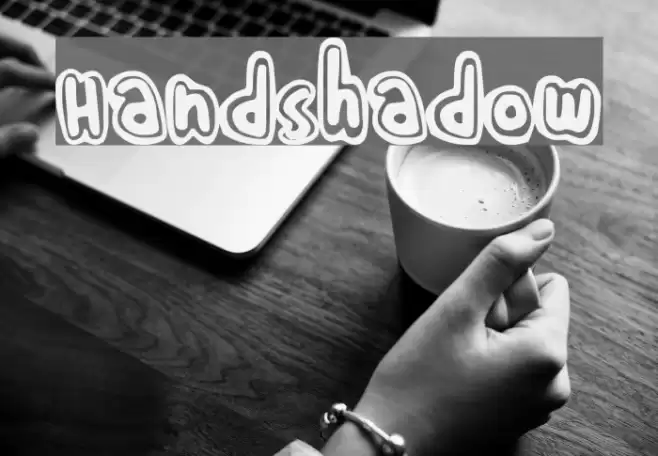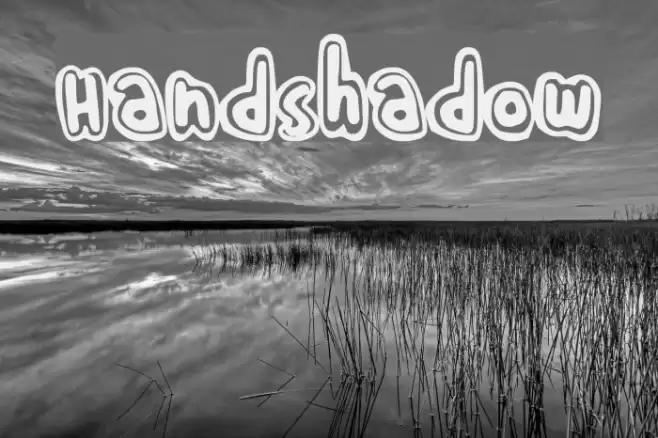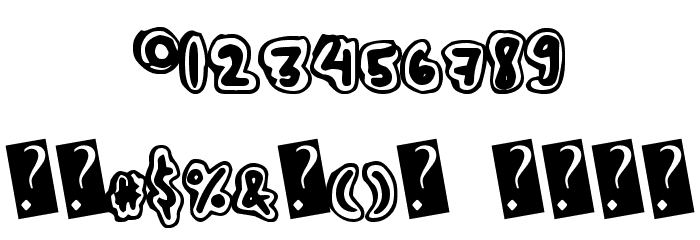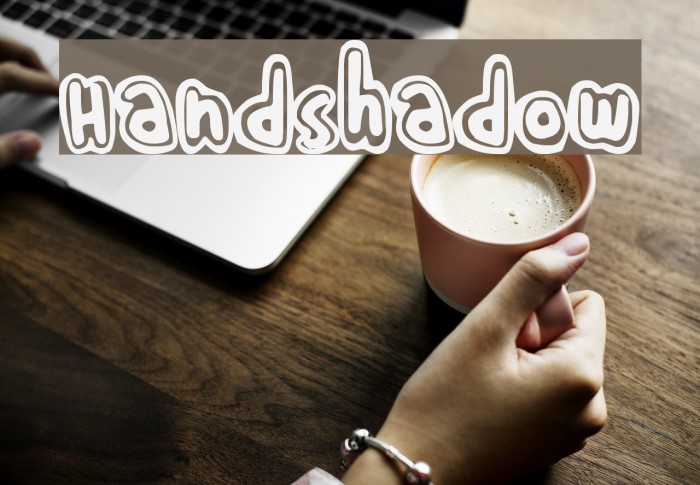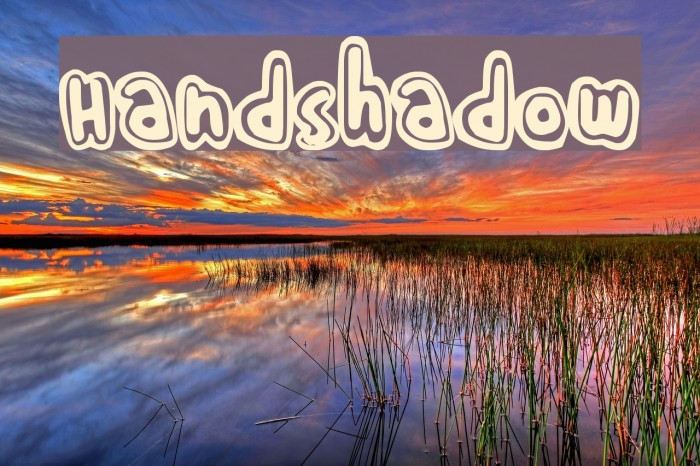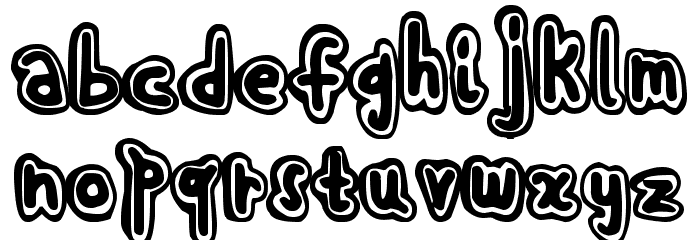
HandShadow Font
HandShadow Description
This font features a playful and bold style with a unique shadow effect that gives it a three-dimensional appearance. The characters are outlined with a thick black border, creating a striking contrast against the inner white space. Each letter and number has a whimsical, hand-drawn quality, making it ideal for projects that require a fun and informal look. The special characters maintain the same bold and shadowed style, ensuring consistency across all glyphs. This font's distinct appearance makes it suitable for eye-catching designs.
A playful, bold font with a shadow effect and hand-drawn style from Cartoon fonts.
- Proposed Projects: Ideal for children's book covers, playful posters, comic strips, and creative branding.
- Overall Style: Playful, Whimsical
- Use Case: Headlines, Posters, Branding